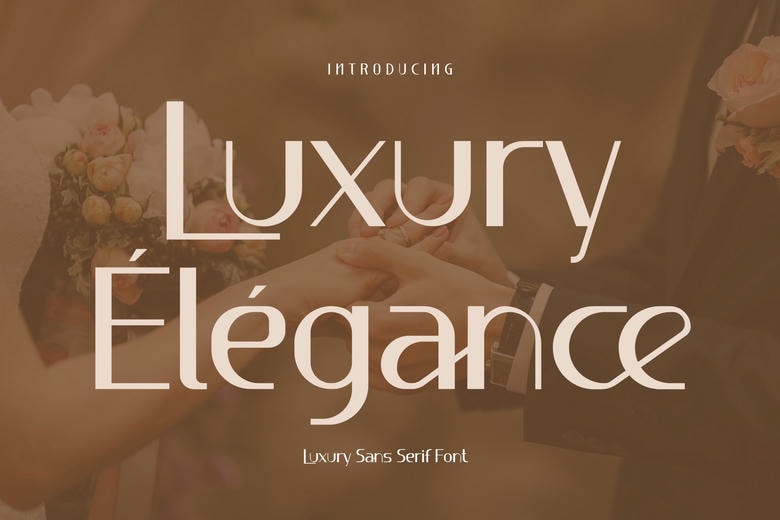
Luxury Élégance Font
Luxury Elegance is a Luxury Sans Serif Font. It is fun and natural and fits on all your beloved works such as blog posts, logos, branding, adverts, invitations, greeting cards, planners, photo albums, decorations, etc. You can add it to any of your designs, and you will enjoy the results!
Luxury Élégance Sans Serif Font